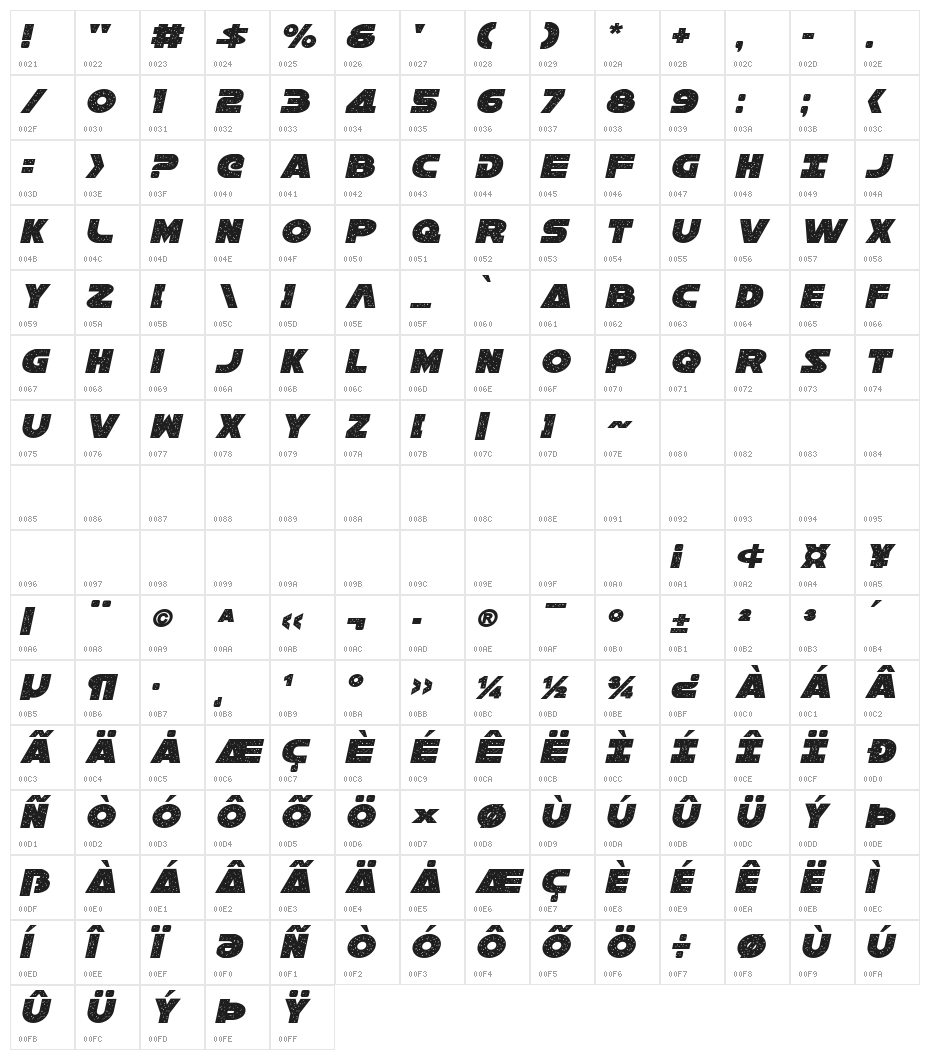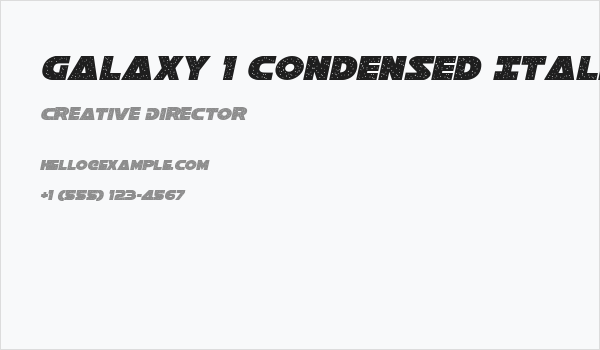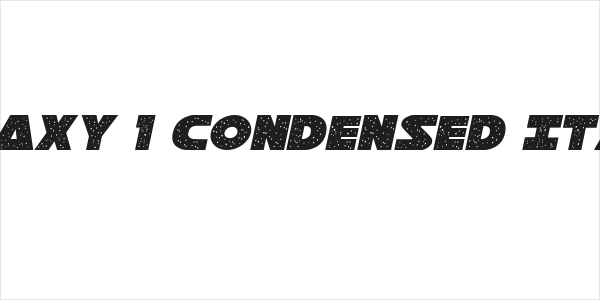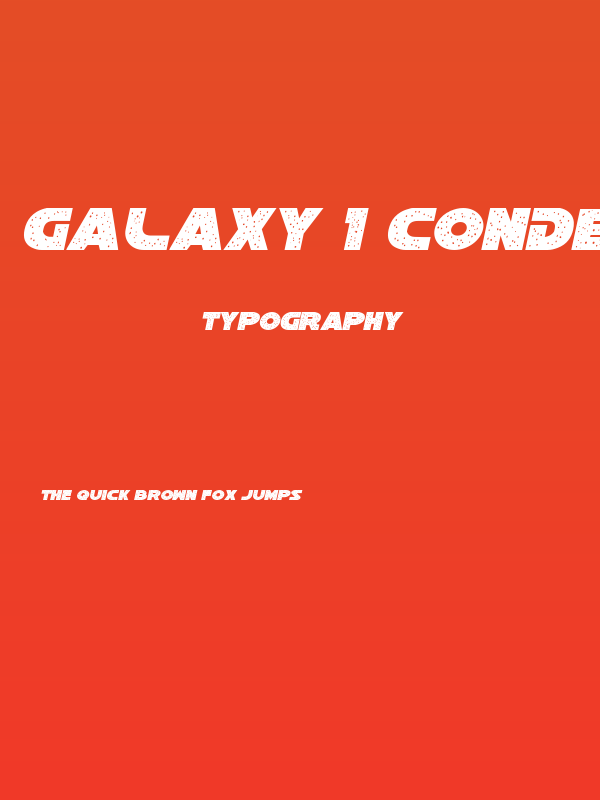
Galaxy 1 Condensed Italic Font
Galaxy 1 Condensed Italic Description
This font features a bold, condensed style with a distinct italic slant, giving it a dynamic and forward-moving appearance. The characters are filled with a pattern of small dots, reminiscent of a starry night sky, adding a playful and cosmic touch. The uppercase and lowercase letters maintain a consistent weight, ensuring readability while the unique pattern provides a decorative flair. The numerals and special characters are designed with the same attention to detail, making them stand out in any design. This font is ideal for projects that require a futuristic or space-themed aesthetic.
| Overall Style | Futuristic, Decorative |
| Proposed Projects | Ideal for sci-fi posters, space-themed events, video game titles, and futuristic branding. |